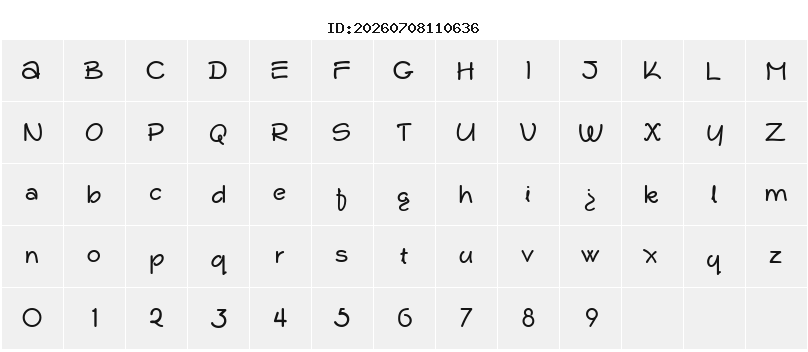
Dallas Preview
• Font Name: Dallas
• Font Style: Plain
• Font ID: Macromedia Fontographer 4.1 Dallas Plain
• Full Font Name: Dallas Plain
• Version: Macromedia Fontographer 4.1 5/28/98
• PostScript Name: DallasPlain
• Character Count: 198
About Dallas.ttf
Dallas.ttf is a modern, elegant sans-serif font designed for ultimate readability and visual harmony. Perfect for branding, headlines, web design, and print materials.